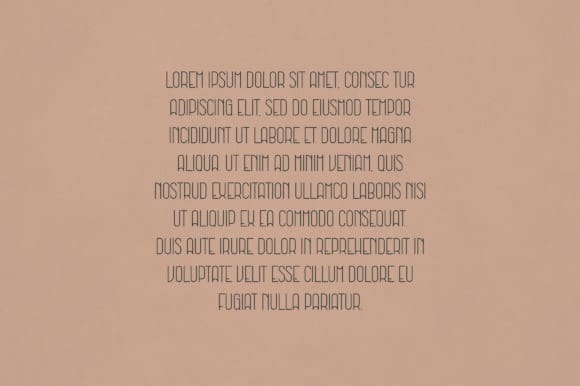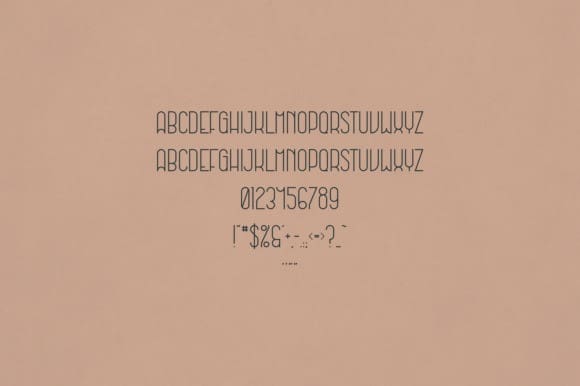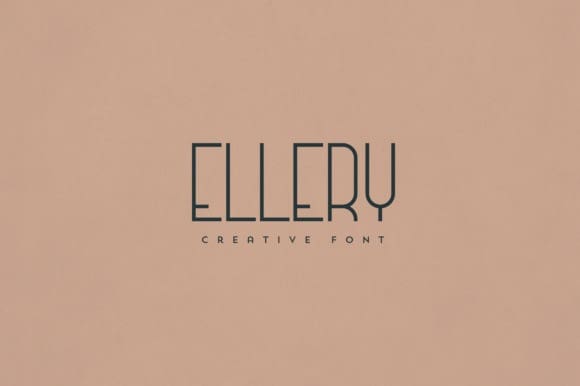
Ellery Font
Ellery Font is an elegant and versatile display font that will make your typography truly unique! It will enchant every logo, branding, headline, or plain text!